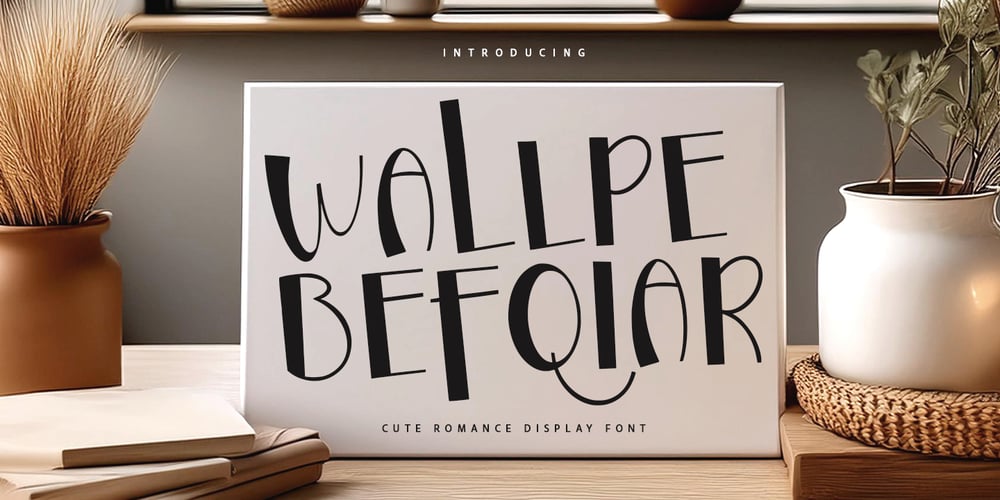
Wallpe Befqiar Font Family was designed by Gilang Maulana and published by Maulana Creative. Wallpe Befqiar contains 1 styles and family package options. Wallpe Befqiar display font. With sharp bold stroke, fun character with a bit of alternates. To give you an extra creative work. Wallpe Befqiar display font support multilingual more than 100+ language. This font is good for logo design, Social media, Movie Titles, Books Titles, a short text even a long text letter and good for your secondary text font with script or serif. Make a stunning work with Wallpe Befqiar display font. Cheers, Maulana Creative